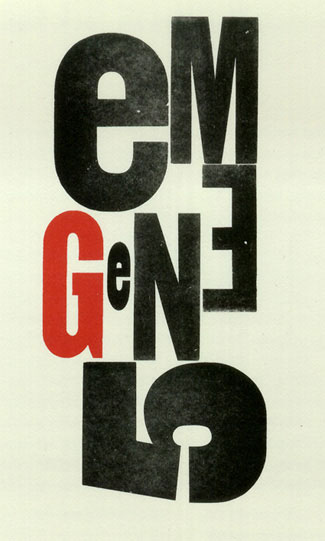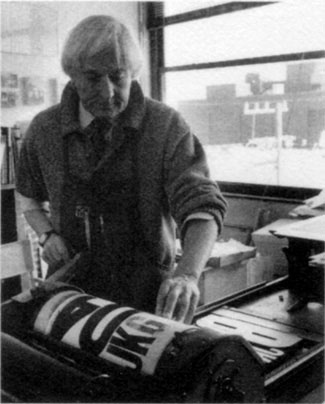
Jack Stauffacher's abstract wood-type prints are on display at the San Francisco Museum of Modern Art, and at a sold-out AIGA event he introduced designers to this fusion of traditional craft and experimental art.
How often do you see typography in an art museum? Apart from the signage, I mean. At the San Francisco Museum of Modern Art (SFMOMA), now through June 30, you can see an exhibition of prints made by Jack Stauffacher in which he used huge wooden letters to make abstract collages.
The prints are typographic in form and inspiration, but they are not typographic in purpose: The letters are there as elements of art, not to communicate a verbal message. The museum describes the prints as "an exercise in typography, lettering, and composition in the tradition of the Russian Constructivists." Since Stauffacher is better known as a letterpress printer and book designer, whose usual concern is giving the right form to the content of a book, this experimental side to his printing comes as a surprise to many people.
Complementing the SFMOMA exhibition, the San Francisco chapter of the AIGA hosted "In Conversation with Jack Stauffacher" on May 15, an evening celebrating the achievements of the Greenwood Press and Stauffacher's profound influence on the printing and design community of the Bay Area and beyond.
Words About Letters
Jack Stauffacher doesn't make speeches, and the AIGA conversation was just that: a sort of guided conversation. It took place in an environment congenial to printers: Watermark Graphics, a large working printshop in an industrial part of San Francisco. There was no stage, just a screen, which divided off part of the huge room, a podium, and a sea of folding chairs, beyond which sat several large, idle printing presses. Former Print magazine editor Chuck Byrne, who along with Dennis Letbetter had organized an exhibit of Stauffacher's work at San Jose State University in 1999, gave a run-down of his professional life, illustrated with slides, while Stauffacher himself sat next to him, responding, correcting, telling stories, and commenting on what the audience could or couldn't see. ("Don't look at that; you can't see any of the details.") After the biographical conversation, Stauffacher stepped off to the side and listened, amused and sometimes embarrassed, to short tributes from MetaDesign co-founders Terry Irwin and Bill Hill, typographer Sumner Stone, former Adobe art director Laurie Szujewska, and designer and critic Jim Faris. To close things out, Faris showed a short film that he had made about Jack Stauffacher at work, and talking about his work. (The sound on the film seemed out of whack, but on the whole it was a good taste of Stauffacher's approach to printing and art.)
Stauffacher at work
When they came to the prints that now hang in SFMOMA, Byrne explained that the wooden letters used were from a batch of 65 assorted pieces of wood type given to Stauffacher by a previous tenant when he moved into the building at 300 Broadway in 1966. (His Greenwood Press is still at the same location in North Beach, although Stauffacher himself and his wife Josephine now live a ferry-ride away across the Golden Gate, rather than within walking distance of the press.) There weren't enough letters to print with, so Stauffacher began using them as design elements in their own right, experimenting in several series of prints, beginning in 1970 and most recently continuing with the series called "Wooden Letters from 300 Broadway" (1998). He worked with the shapes of the letters and numerals, and with different ways of printing them. Several of the prints shown at SFMOMA involve what he calls "on and off inking" (1990), where he mixed inks and solvent in varying ways to achieve a strange combination of precise printing and flowing pigment. In the 1998 series, the juxtapositions of shape, size, and color, all impressed into the surface of the fine paper, create what Byrne called "new character shapes entirely."
For many younger artists and designers, Stauffacher's work was first brought to their attention in an article that Byrne wrote for "Émigré" magazine, about Stauffacher's "marriage of classical typography and modern typography." It was this article that led Aaron Betsky, who was then the curator of architecture and design at SFMOMA, to add the series of experimental prints to the museum's permanent collection.
Anecdotal Evidence
Some of the subjects touched upon in the AIGA conversation overlapped those that Stauffacher had talked about last fall, in his presentation at Zapfest: the five years he spent at Carnegie Institute in Pittsburgh, his bringing Hermann Zapf to the United States for the first time, and his getting Zapf involved in the creation of a new typeface for the Hunt Botanical Library. But there was much more.
Chuck Byrne told how Stauffacher received a Fulbright scholarship in 1955 to go to Italy and study the Florentine printers. "Jack must be the only person who ever stretched a one-year Fulbright scholarship into three years," said Byrne. While in Italy, Stauffacher made "pilgrimages" to Switzerland to meet some of the people who had influenced his own approach to type and printing: Jan Tschichold, the lion of the New Typography in the 1920s who had become an old lion of traditional typography in his later years; and the pacesetters of the modern "Swiss" style of functionalist typography, Emil Ruder and Armin Hofmann, in Basel.
Stauffacher was not wedded to the stark Swiss style, but he found it gave him a sort of "clarity, order to work off of." He reminded the audience that in the context of earlier styles of typography, the Basel school offered "refreshment for people who had ornaments in their heads."
When Stauffacher came back to his California roots in the early 1960s, he did so as Typographic Director of the Stanford University Press, in Palo Alto. He described how he had envisioned such a post as the ultimate job for a typographer, at a center of enlightenment where he would commune with the "illuminaries" of printing. Unfortunately, his hands-on style clashed with the established hierarchies of the press in those days. He would go into the Linotype shop and talk to the operators, explaining to them how to letterspace small caps and teaching them about the long tradition of printing techniques: "It's not what I want, it's what has to be!" Although he pulled the standards of typography at Stanford up to a higher level and set the press on a track towards excellence, he didn't last long there himself.
No Boundaries
Having his work bought by SFMOMA and exhibited there brought Jack Stauffacher "full circle," he said: from his brother Frank's establishment of "Art & Cinema" at the museum in 1946 to the fact that "I met my future wife in that space in 1947." (Presumably not literally "in that space," since the museum's current building is recent.) And it recognizes the full integration of art, type, and society: the sort of integration that to Stauffacher comes naturally, while others try to build walls and jealously guard their categories and niches. Jack Stauffacher is a modest, down-to-earth man, apparently immune to bombast and hype, but as Chuck Byrne said in conclusion, "He takes his obligation to civilization seriously."